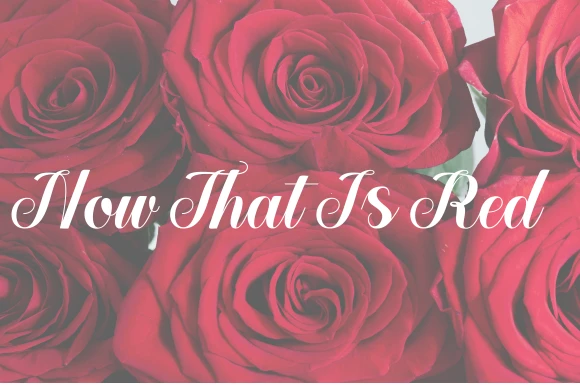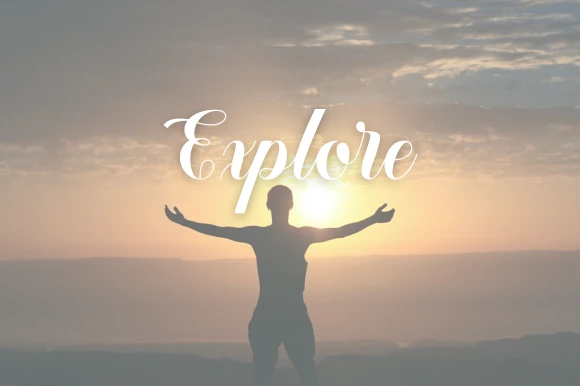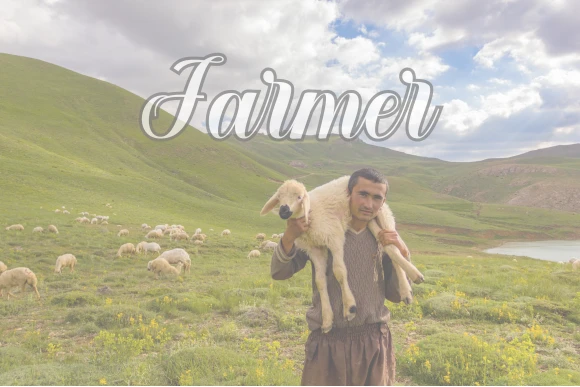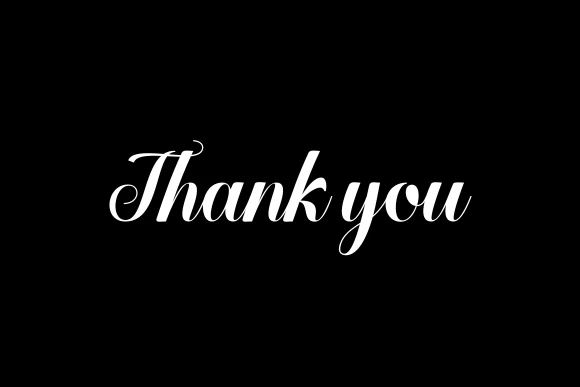
Add sweetness and charm to your designs with Baby Boo Fonts — a playful handwritten script inspired by baby books, nursery décor and children’s products. Its rounded curves and friendly strokes create a warm, approachable look that’s perfect for designers, parents and small businesses wanting to give their text a gentle, family-friendly feel.
Use Baby Boo Fonts for baby shower invitations, kids’ birthday party stationery, nursery prints, product packaging, children’s apparel, logos, social media graphics, greeting cards and blog headers. The font’s clean, easy-to-read style makes it ideal for both print and digital projects.